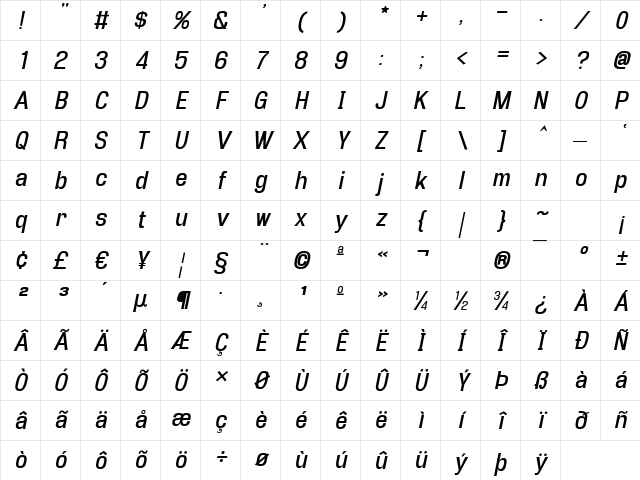
Enigmati Italic Free Font
Enigmati Italic
Foundry: Starving-4 Entertainment
Designer: Darren Rigby
Design Context for Enigmati
Enigmati is a composed and adaptable typeface that performs quietly and consistently across a wide range of design contexts. The slanted form adds forward momentum and visual energy.
Pro Tip: Use Enigmati for emphasis, pull quotes, and subheadings where its slanted energy can add rhythm to the layout.